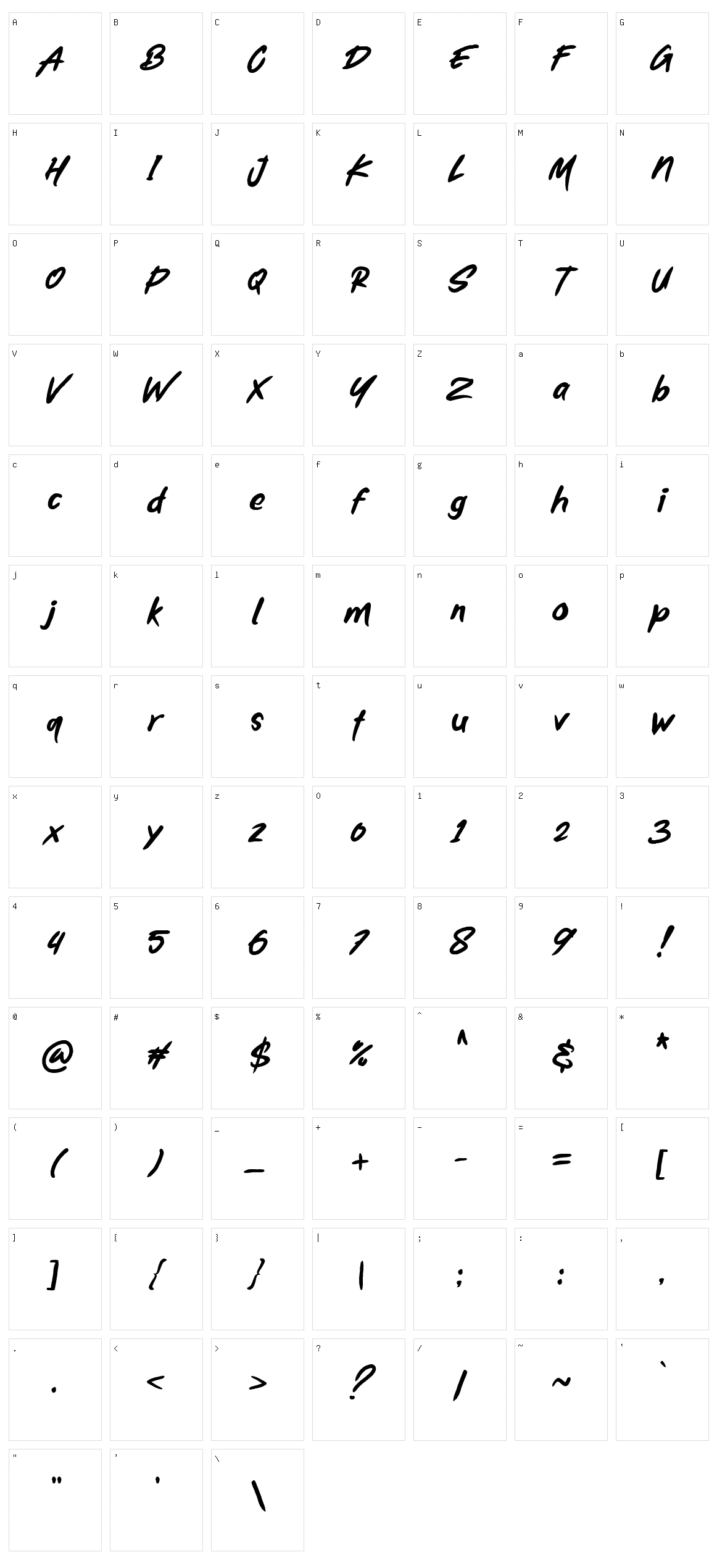
The free font Mortal Wave is carefully designed by StringLabs Creative Studio, showcasing a thoughtful balance of creativity and usability and falls under the Script font style. When you download the ZIP file, it contains only 96.78 KB of font files, making it lightweight and quick to download. Please review the license details below to understand permitted usage and distribution rights. If license information is not available, we recommend using this font for personal projects only or contacting the author directly for commercial usage permissions.